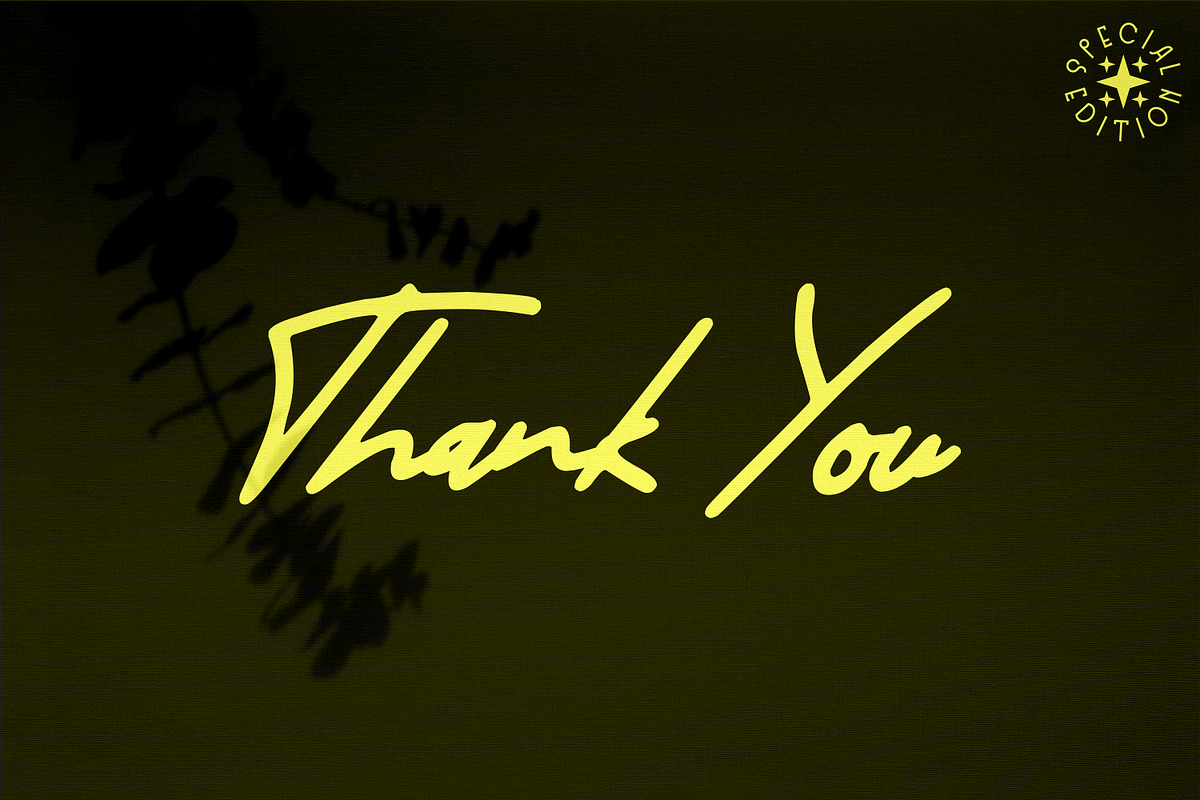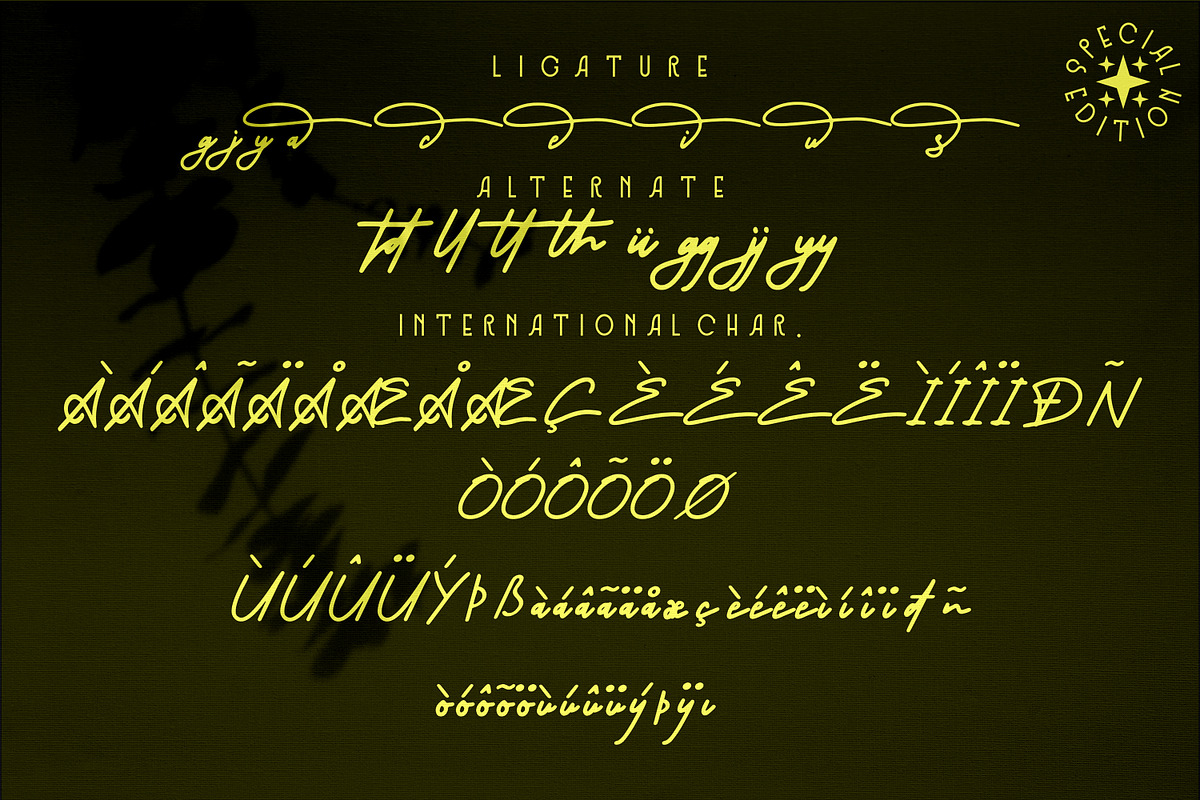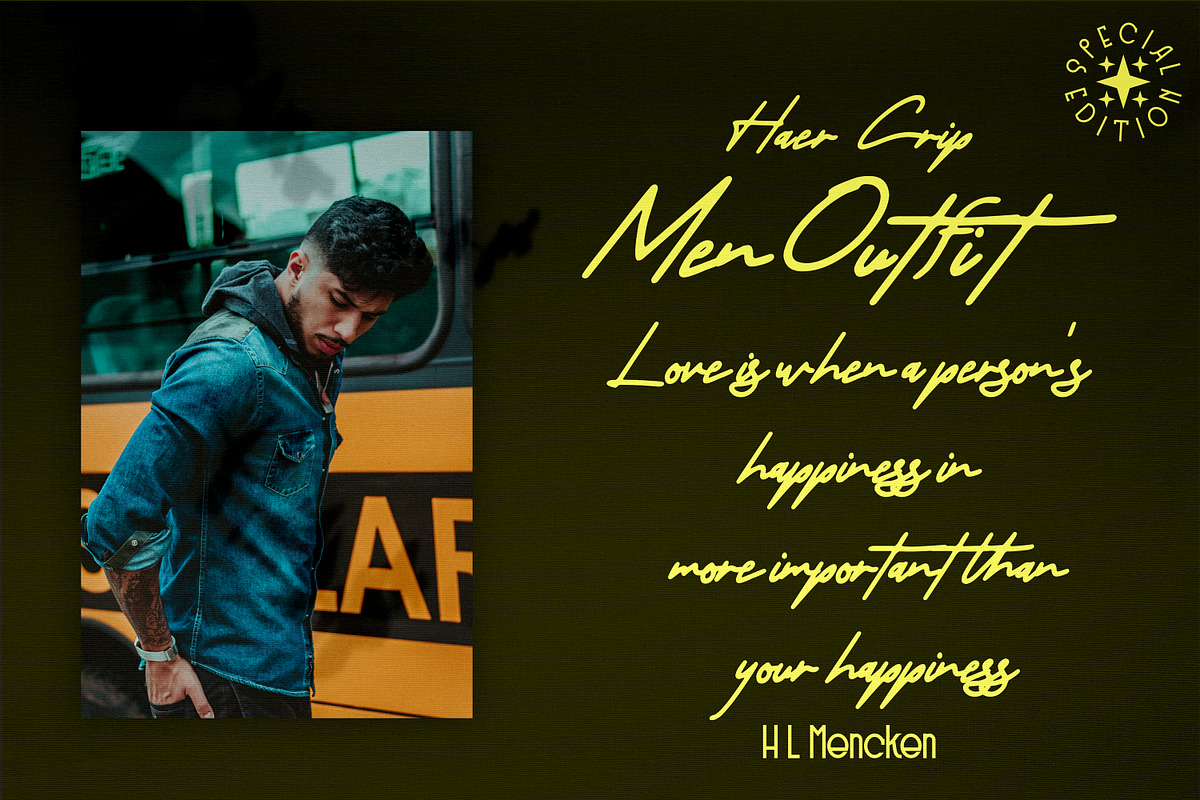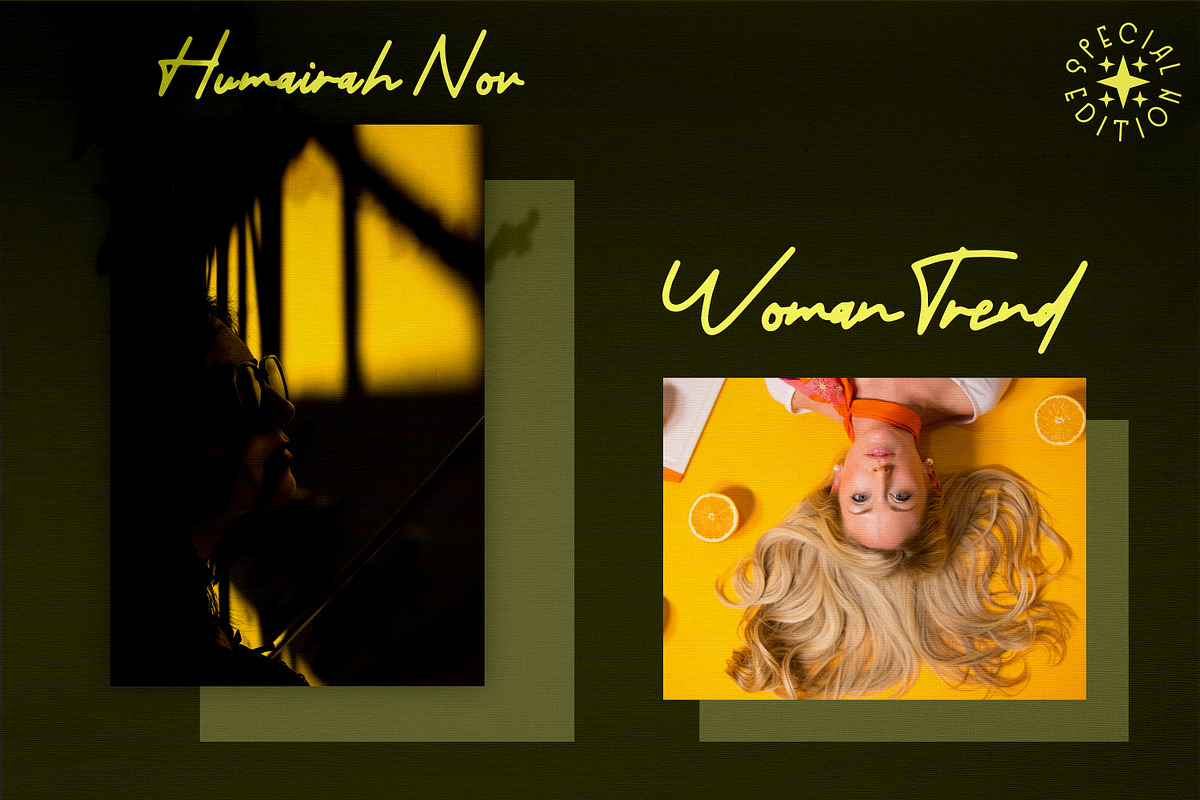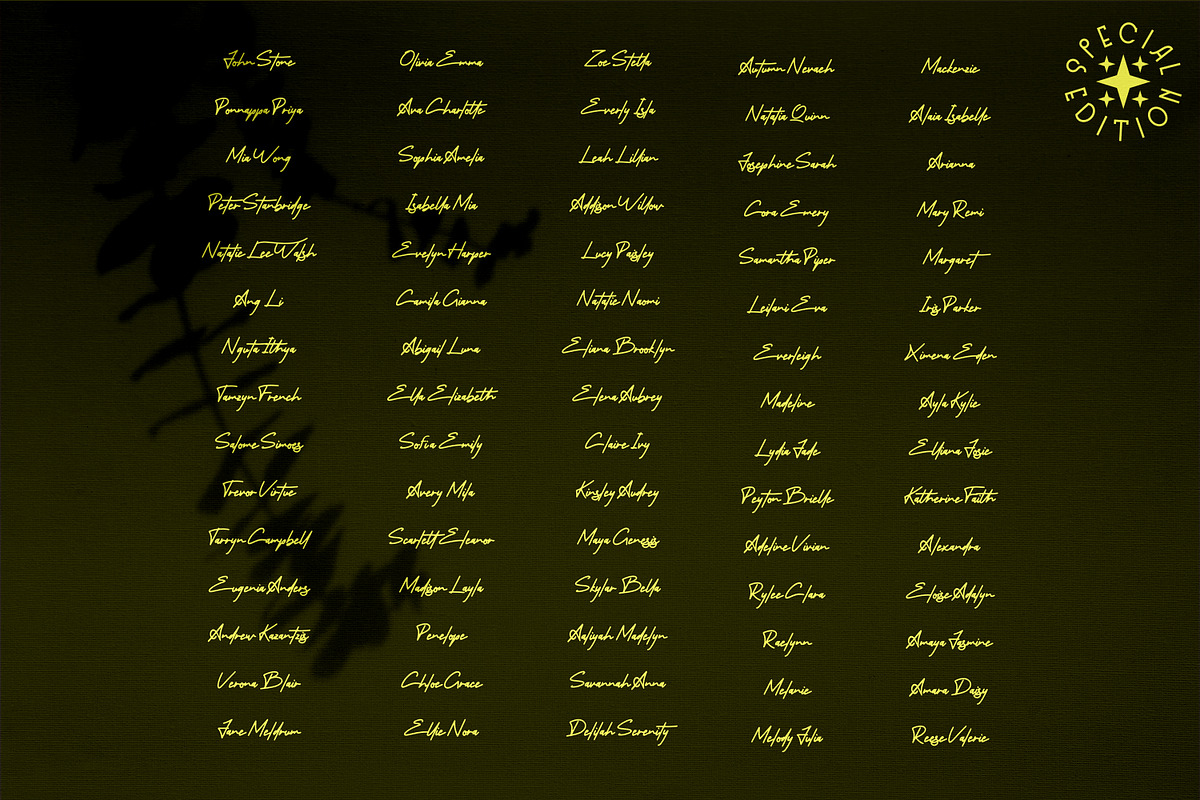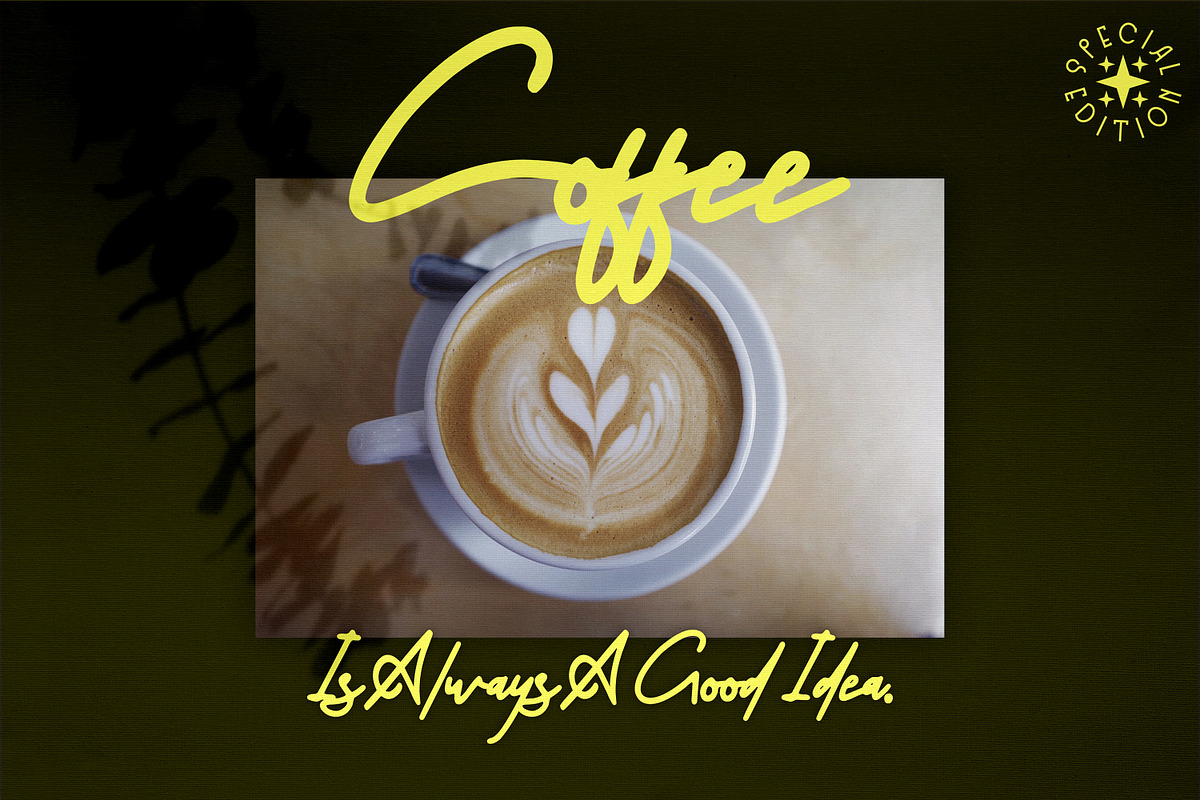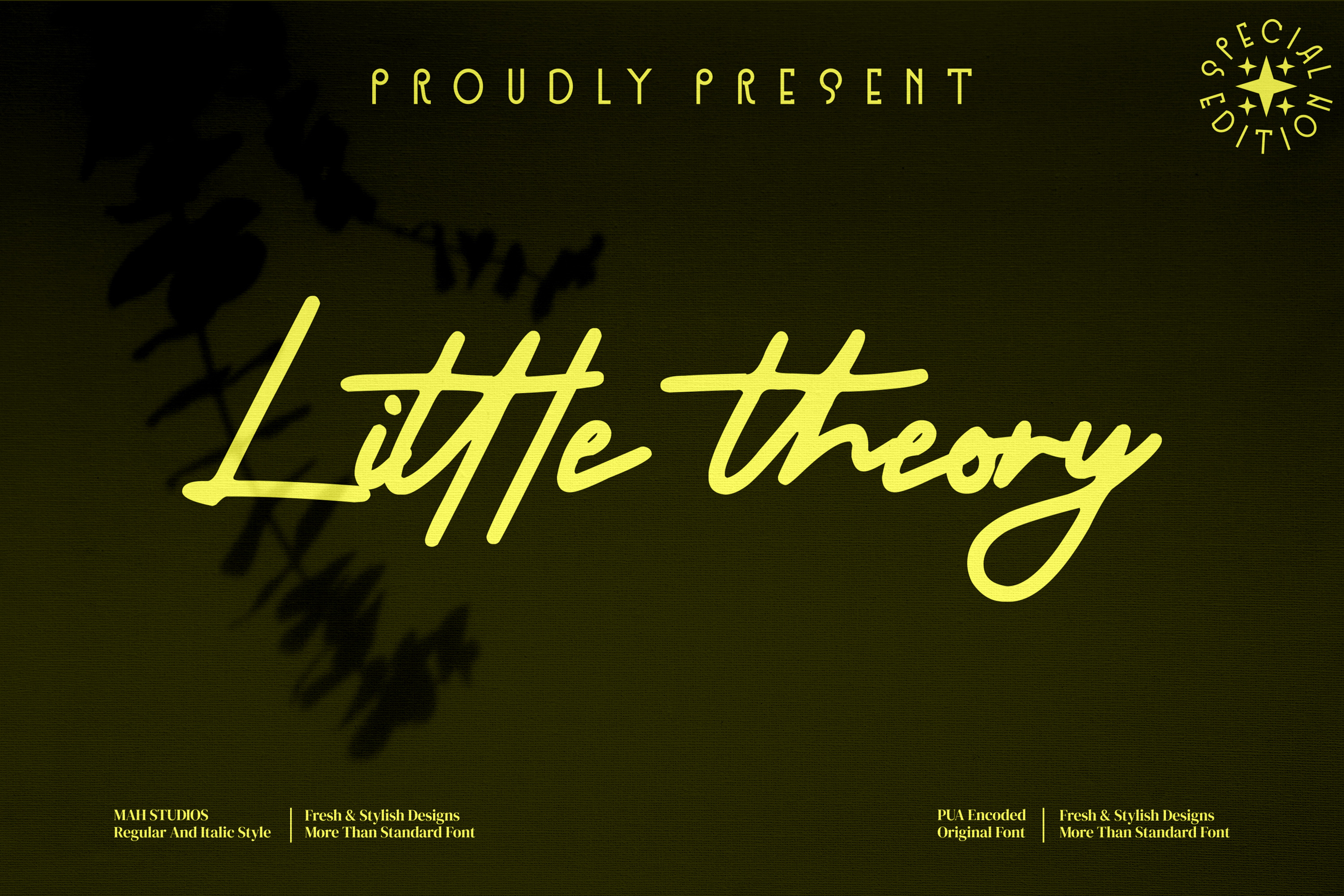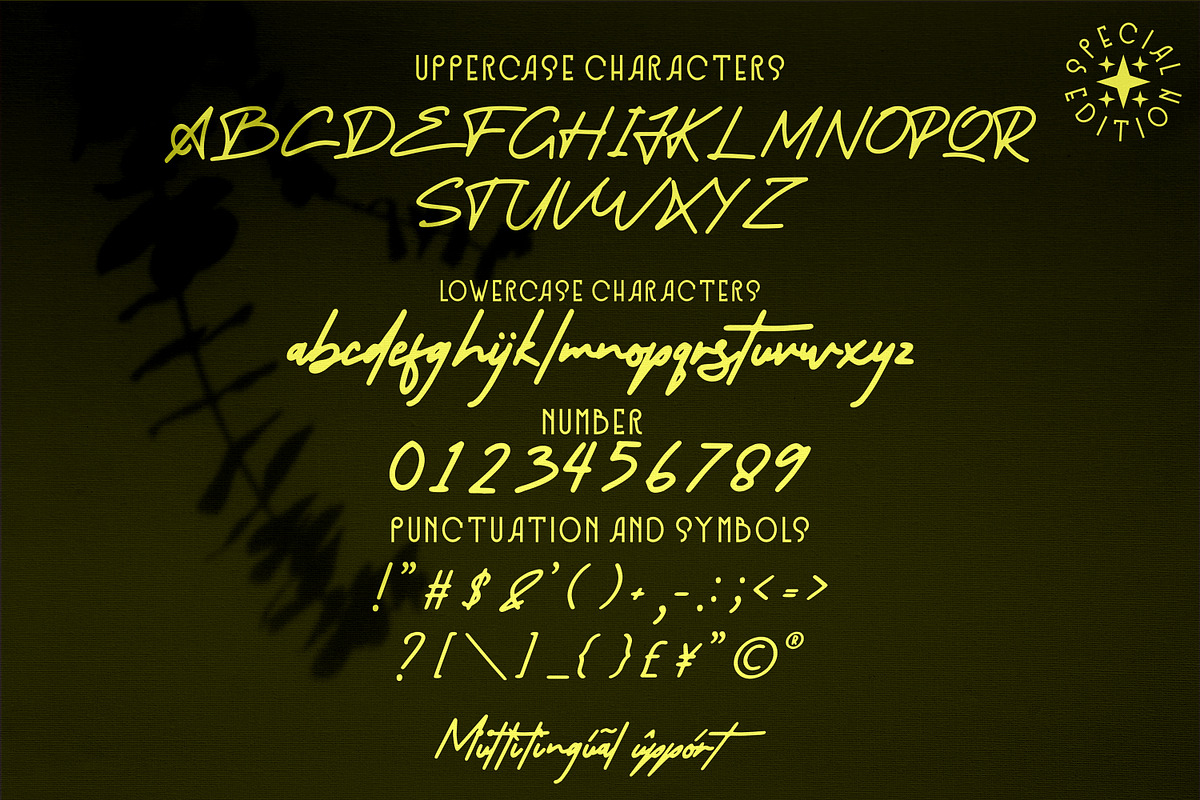
little theory - Script style font
little theory - Script style font, suitable for any projects such as: logos, branding projects, homeware designs, product packaging, mugs, quotes, posters, shopping bags, t-shirts, book covers, name card, invitation cards, greeting cards, label, photography, watermark, special events, and all your other luxury projects that need a premium signature taste. Product Font Content : TTF OTF WOFF